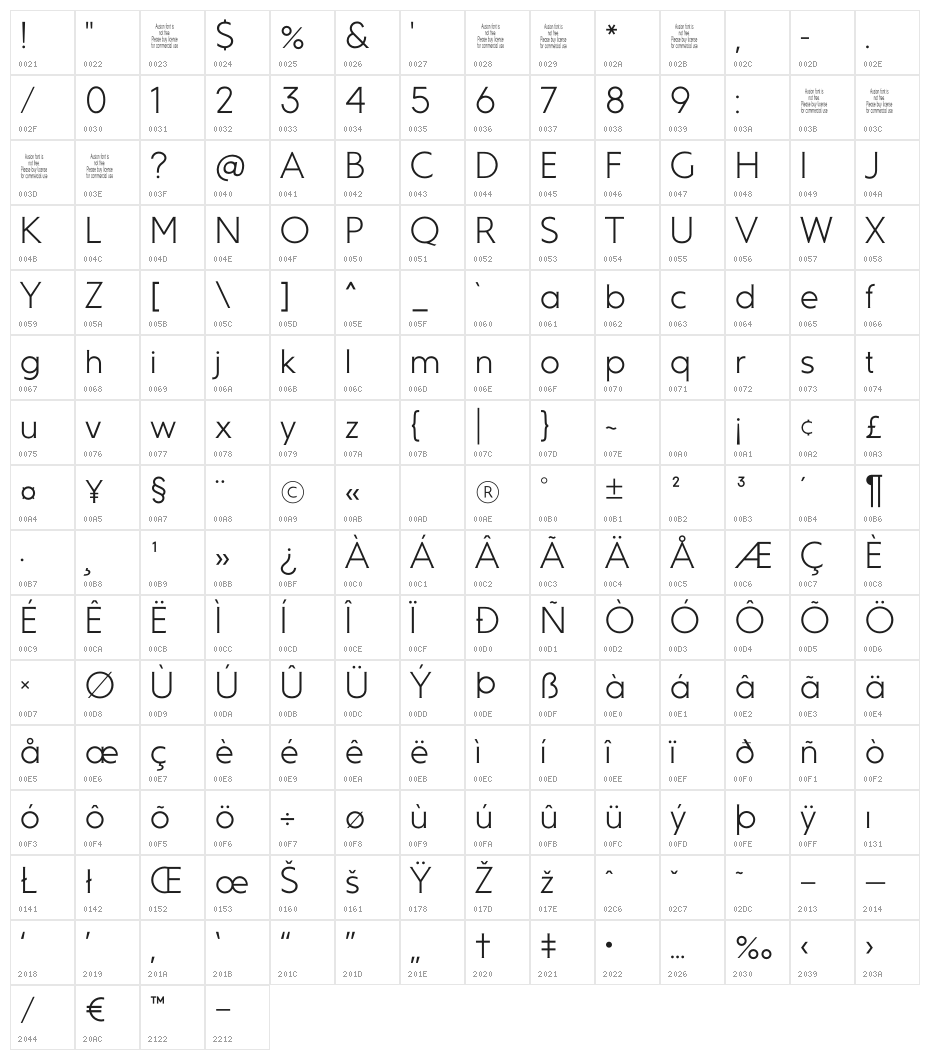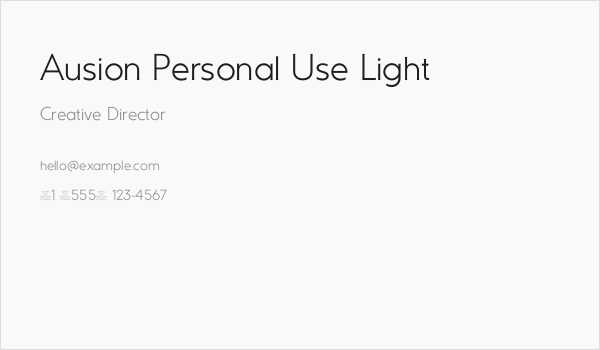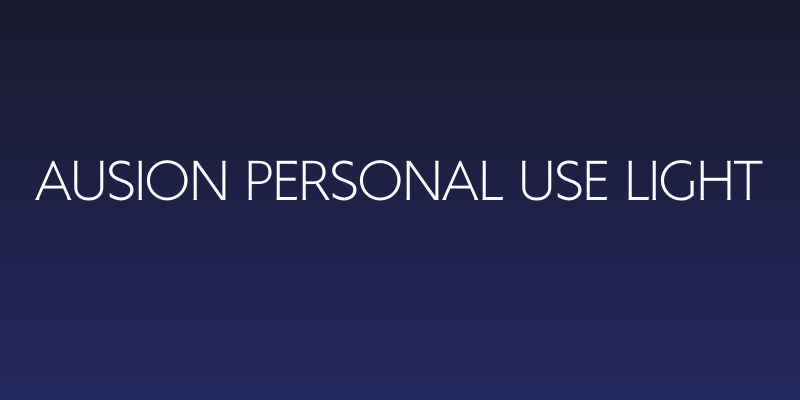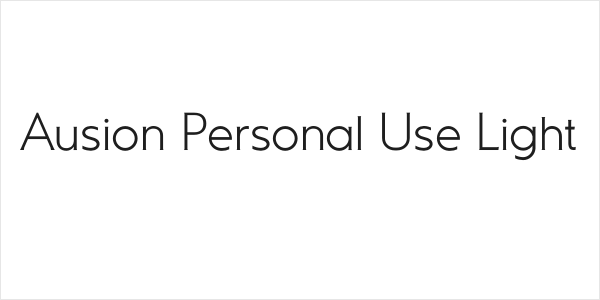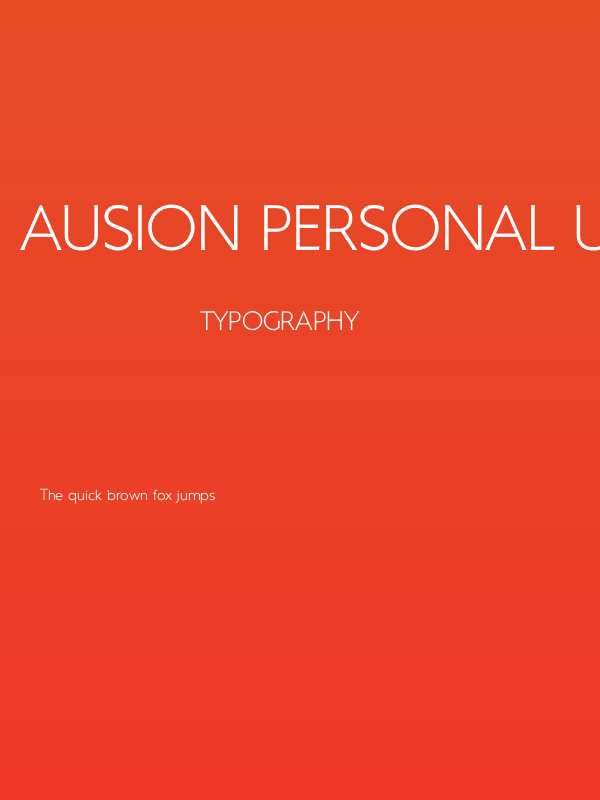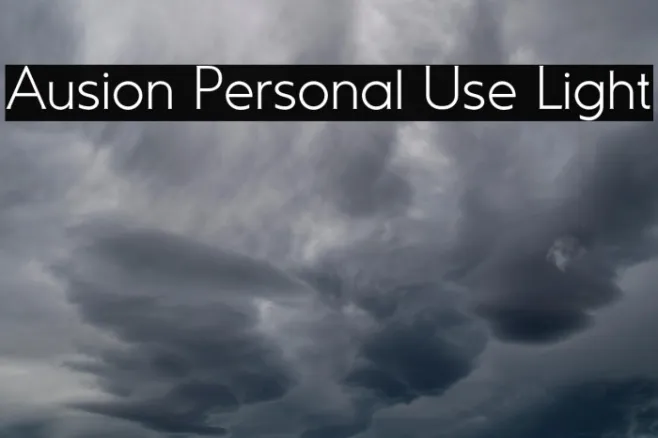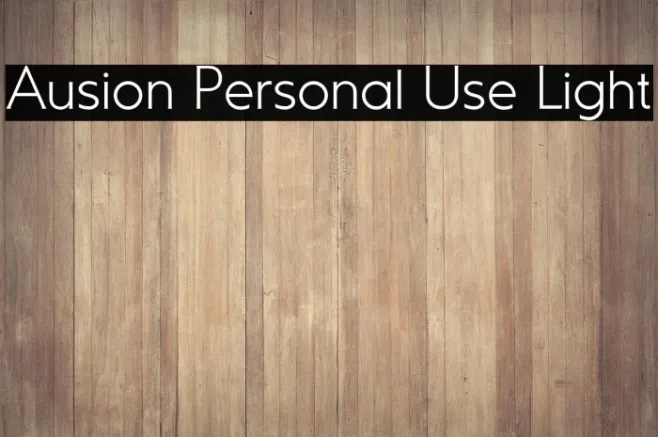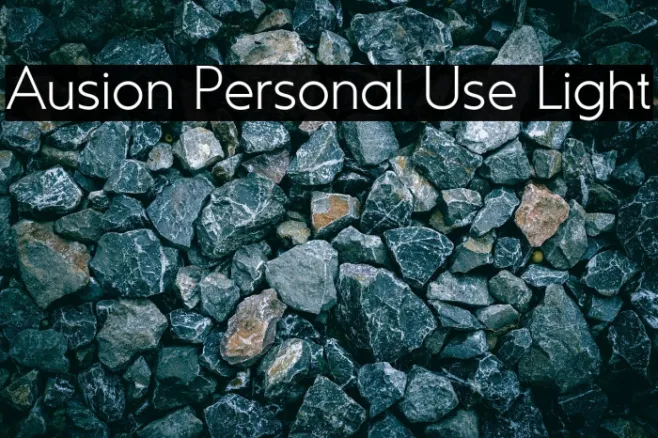
Ausion Personal Use Light Font
Ausion Personal Use Light Description
This font features a clean and modern aesthetic with a sans-serif style. The characters are sleek and streamlined, offering a minimalist appearance that is both elegant and functional. The uppercase and lowercase letters maintain a consistent height and width, contributing to a harmonious and balanced look. The numerals are clear and easy to read, making them suitable for various applications. Special characters are designed with the same attention to detail, ensuring they integrate seamlessly with the rest of the font. Overall, this font exudes a contemporary vibe, making it ideal for modern design projects.